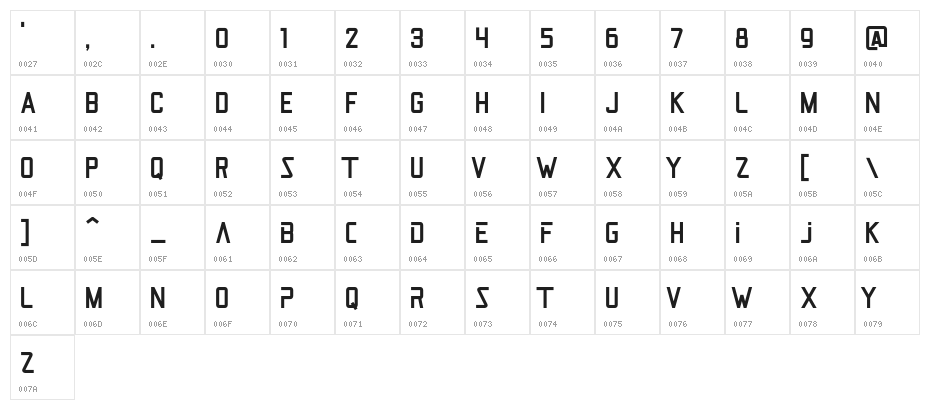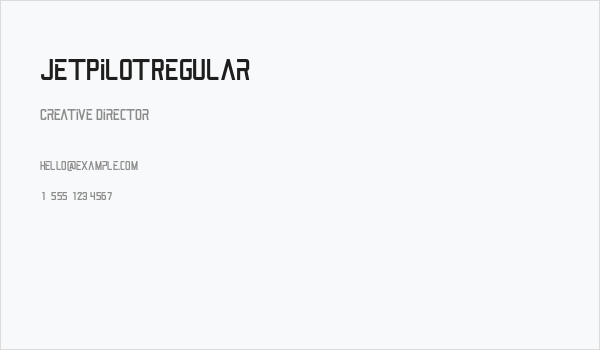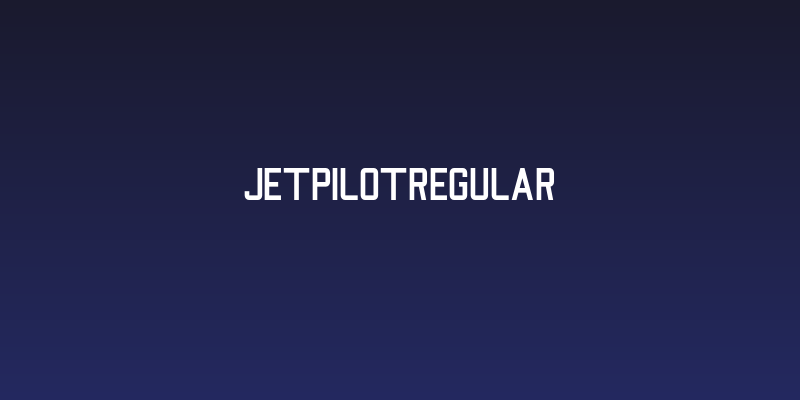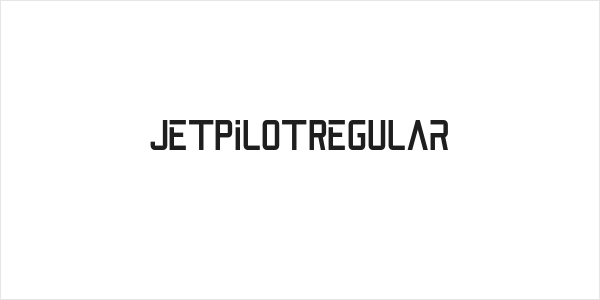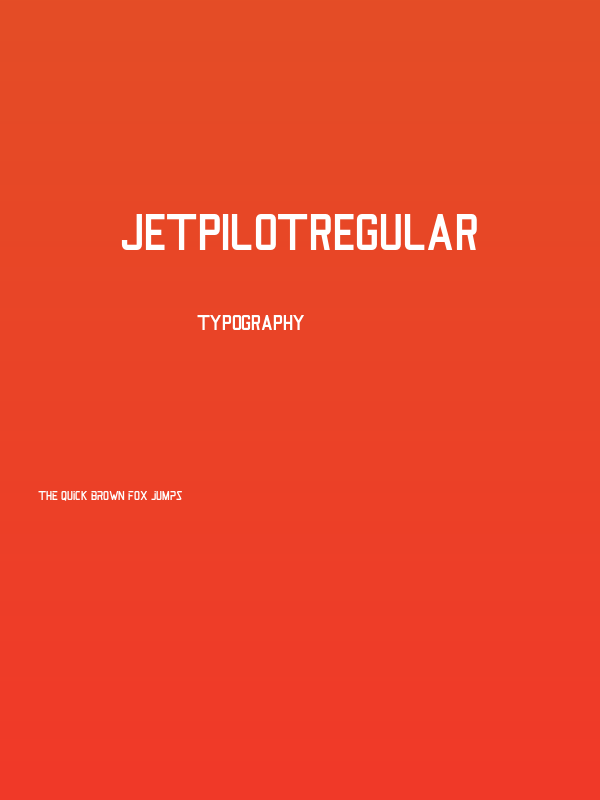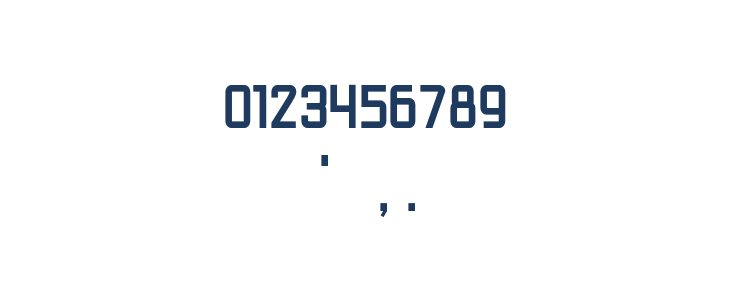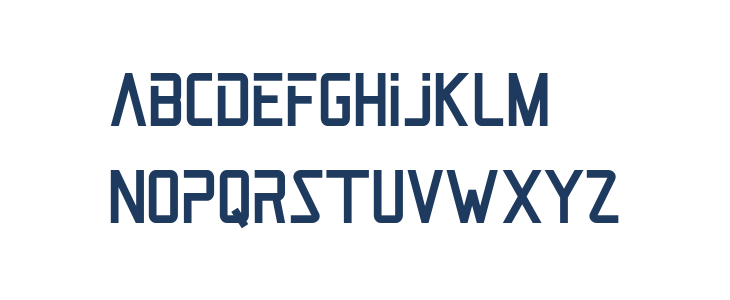
JetPilotRegular Font
JetPilotRegular Description
This font features a bold, geometric design with a modern and futuristic aesthetic. The characters are constructed with clean, straight lines and sharp angles, giving it a technical and structured appearance. The uppercase letters are uniform in height, while the lowercase letters maintain a consistent style, enhancing readability. The numerals are distinct and align well with the overall design, making them suitable for digital displays. The font's style is reminiscent of aviation or technology themes, making it ideal for projects that require a sleek and contemporary look.
| Use Case | Headlines, Logos, Digital Displays |
| Proposed Projects | Ideal for technology branding, aviation-themed designs, digital interfaces, and modern advertising. |